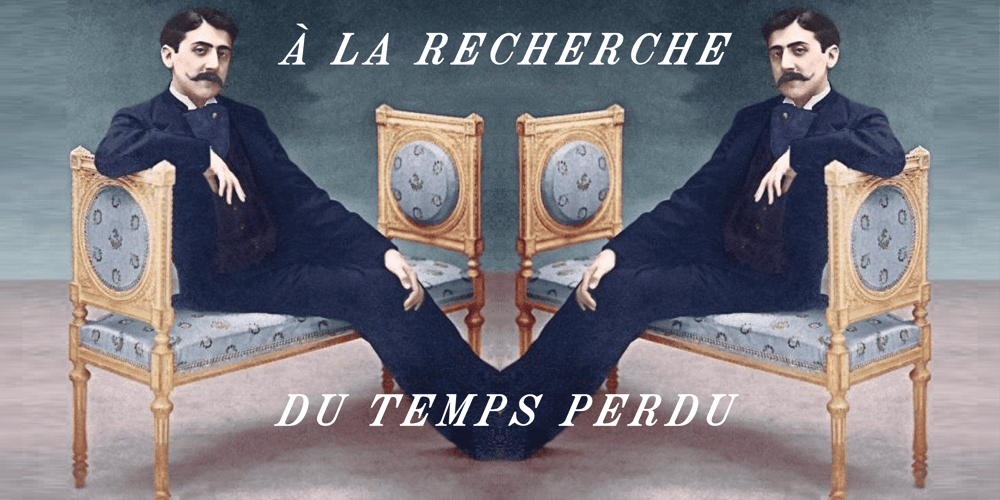
Risoluto Font Family was designed by Jawher Matmati and published by Jawher Matmati. Risoluto contains 1 styles and family package options. Risoluto is an italic font made to mimic the beautiful italic typefaces used in the 19th and 20th century by music publishers. It was based on an italic typeface found in a publication by Max Eschig from the 1950s. Hundreds of specimen for each glyph were studied and carefully drawn in a way to have a sharp rendering without losing any of the old charm. The oblique “g” is one of the characteristics of such old typefaces. Risoluto covers a large range of languages and symbols and offers stylistic alternates for numerals, contextual ligatures and music accidentals.